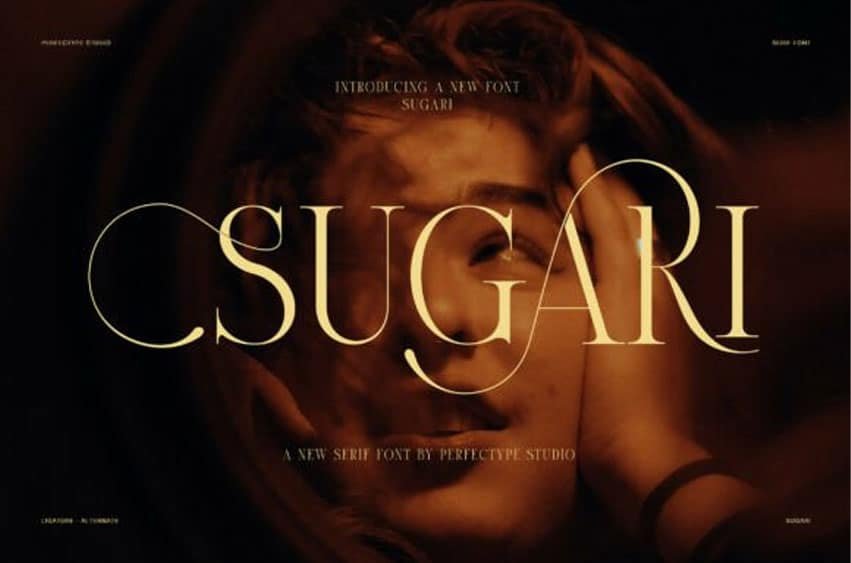
Sugari Font is an elegant ligature serif font designed for creators who want refined typography with artistic character. Inspired by luxury editorials, high-end fashion, contemporary branding, and timeless print design, this display typeface combines graceful serif forms with expressive ligatures and sophisticated alternate characters.
As a result, every headline, logo, and visual identity feels polished, memorable, and effortlessly elegant.